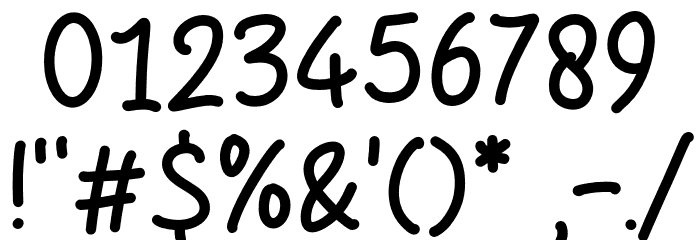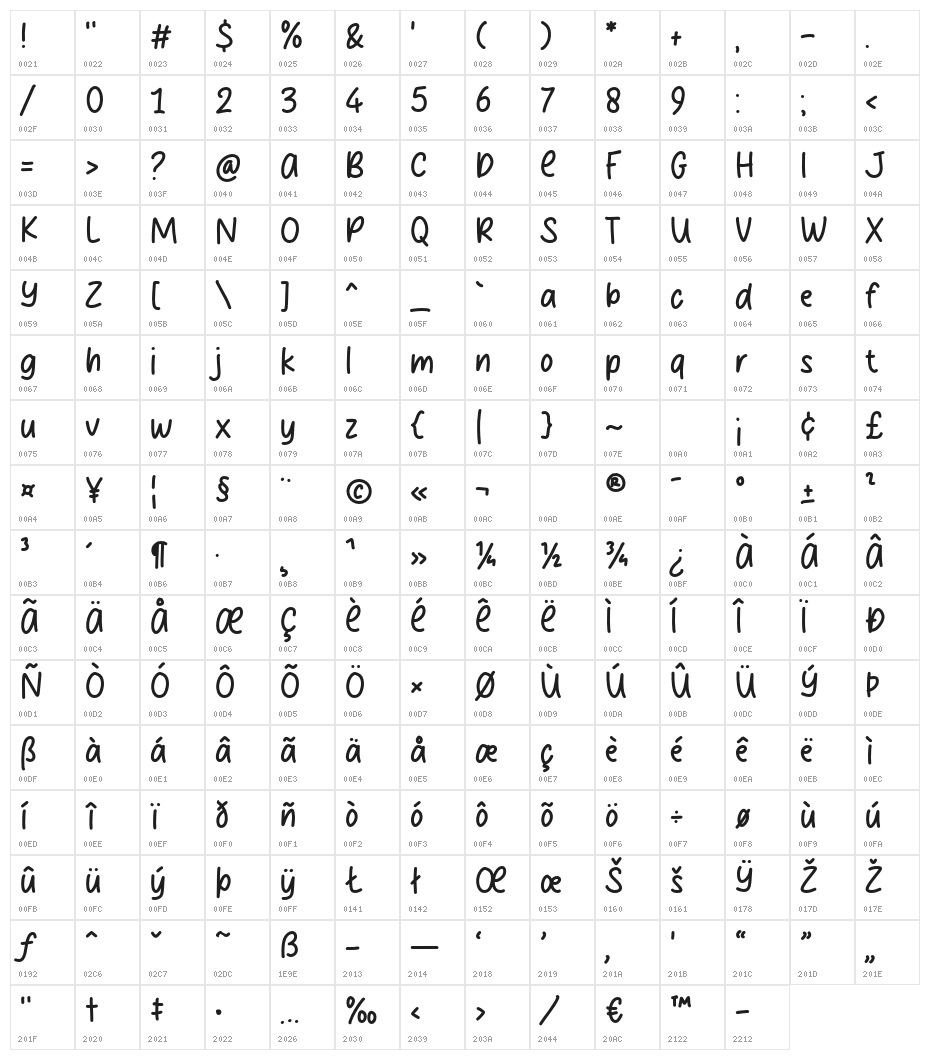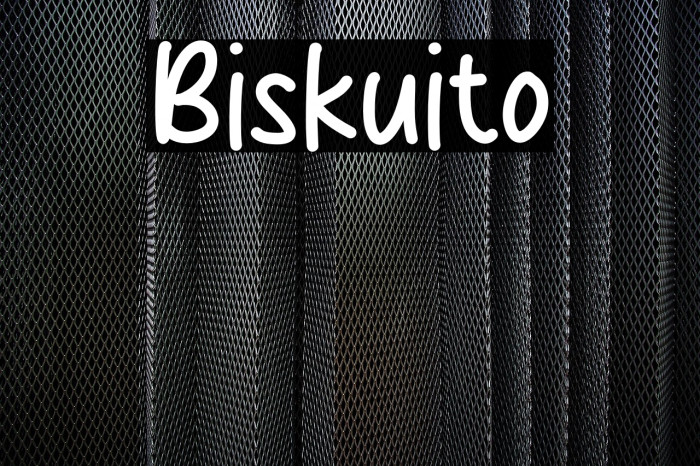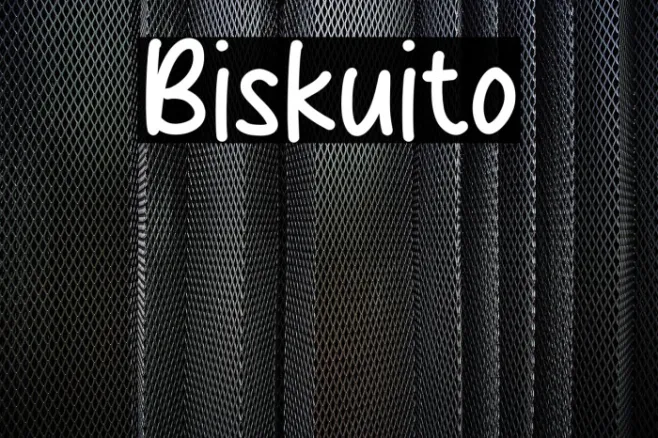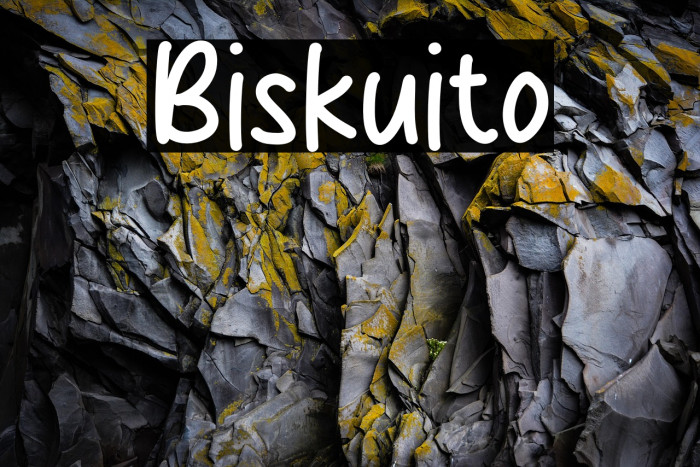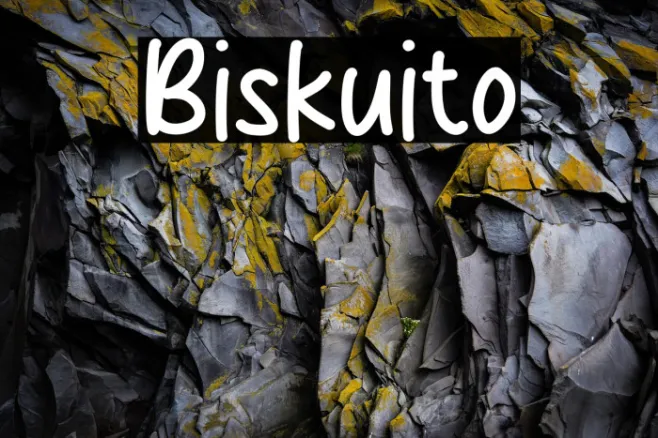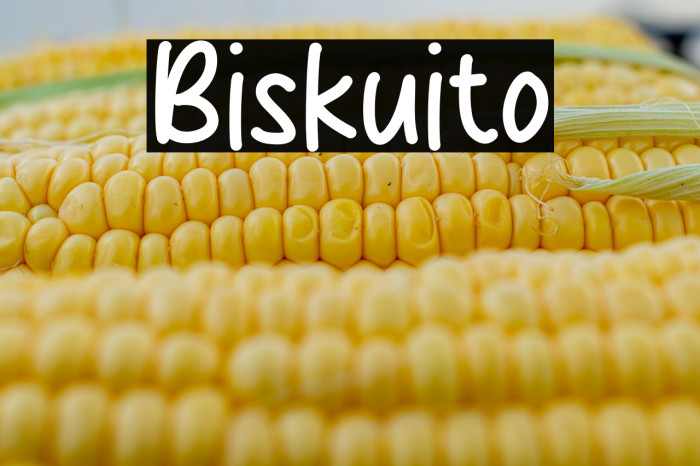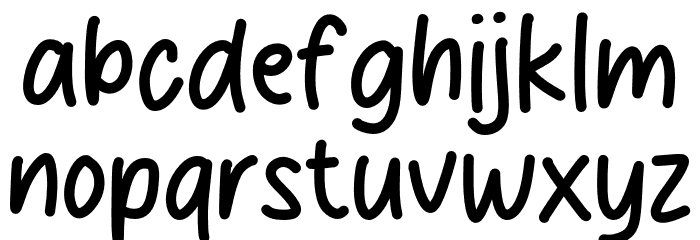
Biskuito Font
Biskuito Description
This playful and casual font features a handwritten style with a friendly and approachable appearance. The letters are rounded and slightly irregular, giving it a natural and organic feel. The strokes are consistent in thickness, providing a uniform look across all characters. The font includes both uppercase and lowercase letters, numbers, and a variety of special characters, making it versatile for different uses. Its informal style makes it suitable for projects that require a personal touch, such as invitations, greeting cards, or children's books.
| Use Case | Headlines, Informal text, Creative projects |
| Proposed Projects | Ideal for invitations, greeting cards, children's books, and casual branding. |